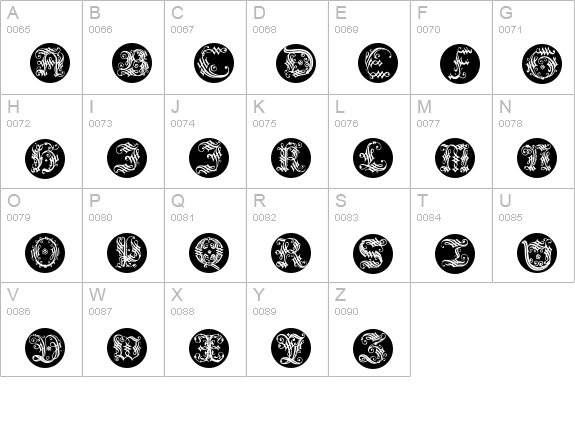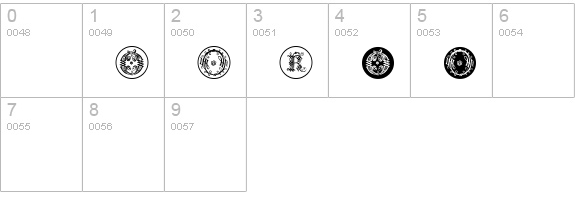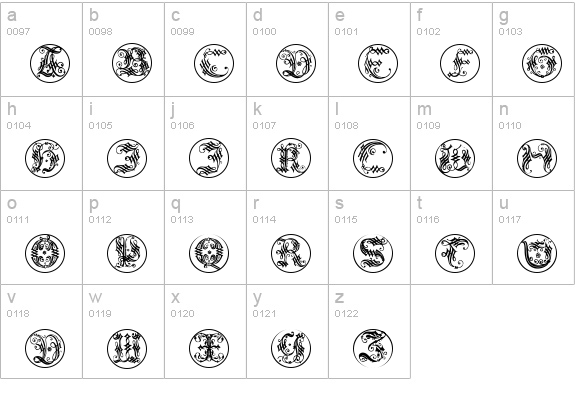
OrnamentalInitialButtons Font Details
OrnamentalInitialButtons font is a stunning and elegant typeface that exudes sophistication and charm. With its ornate and decorative initial letters, this font is perfect for adding a touch of luxury to any design project. Whether you're creating invitations, posters, or branding materials, OrnamentalInitialButtons font will elevate your work to new heights. The intricate details and flourishes of OrnamentalInitialButtons font make it a versatile choice for a wide range of design applications. Each letter is carefully crafted to make a bold statement and capture attention. The exquisite design of this font will undoubtedly make your projects stand out from the crowd. The best part? OrnamentalInitialButtons font is available for free download at FontsMarket.com. So go ahead and add this exquisite typeface to your collection today and take your design projects to the next level.